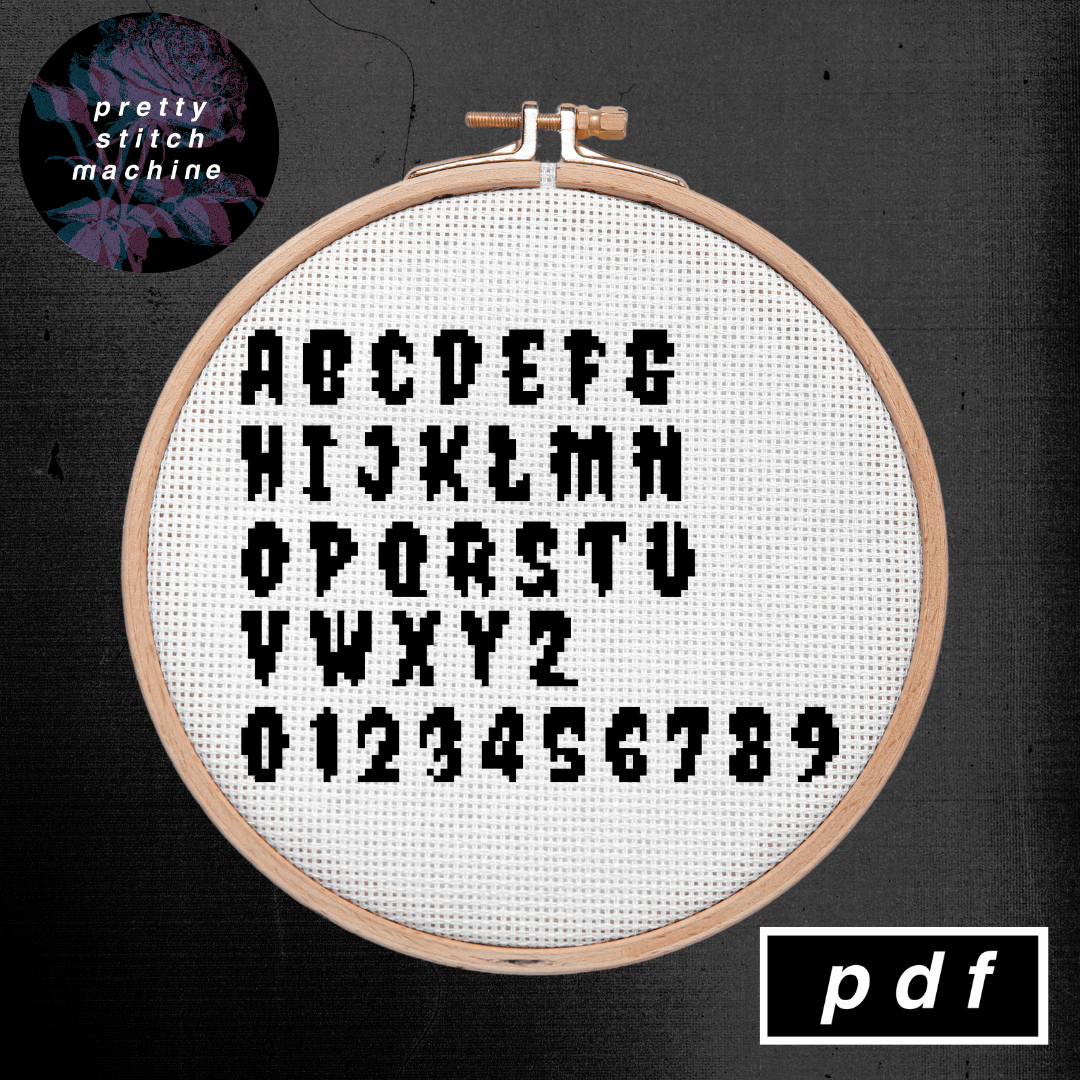
Horror Halloween Alphabet / Font Pattern
difficulty level: beginner
dimensions: letters and numbers vary from 4 – 9 stitches in width, all letters and numbers are 10 stitches in height
additional notes:
↠ pattern designed on 14 count Aida
↠ pattern uses 1 colour, keys provided in DMC colours
↠ pattern uses only full stitches